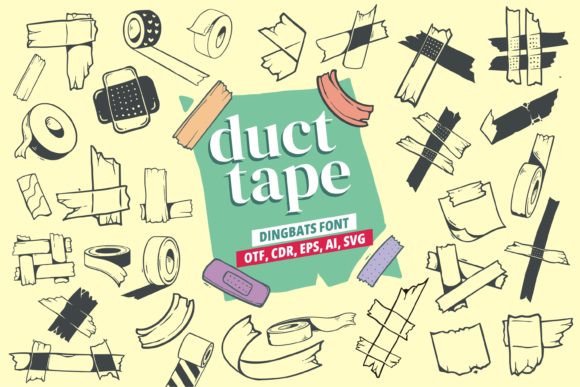
Duct Tape Font: Add a Playful Touch to Your Designs
Duct tape is a versatile and handy tool that can fix almost anything, but did you know that it also has a font version? Introducing the Duct Tape Font, a playful dingbat font that can add a fun and creative twist to your designs. In this article, we’ll explore the world of Duct Tape Font, its features, and how you can use it to make your designs stand out.
What is Duct Tape Font?
Duct Tape Font is a hand-drawn dingbat font that features illustrations of duct tape in various forms. The font is designed to be playful and fun, making it perfect for creative projects that require a touch of whimsy. The duct tape illustrations are meticulously crafted to resemble real duct tape, complete with wrinkles, folds, and textures.
The font comes with a range of characters, including uppercase and lowercase letters, numbers, and symbols. Each character is carefully designed to resemble duct tape, allowing you to create unique and eye-catching designs.
Features of Duct Tape Font
The Duct Tape Font has several features that make it a great addition to your design toolkit. Here are some of its key features:
- Hand-drawn illustrations: Each character in the font is hand-drawn, giving it a unique and personal touch.
- Dingbat design: The font features illustrations of duct tape in various forms, making it perfect for creative projects.
- Playful and fun: The font has a playful and fun vibe, making it ideal for designs that require a touch of whimsy.
- Versatile: The font can be used for a variety of purposes, from decorating designs to creating plans.
Uses of Duct Tape Font
The Duct Tape Font is a versatile font that can be used for a range of purposes. Here are some ideas on how you can use it:
- Decorating designs: Add a playful touch to your designs by using the Duct Tape Font to create titles, headings, and other text elements.
- Creating plans: Use the font to create fun and engaging plans, such as party plans, event plans, or DIY project plans.
- Social media graphics: Use the font to create eye-catching social media graphics, such as Facebook posts, Instagram stories, or Twitter headers.
- Stationery and cards: Add a personal touch to your stationery and cards by using the Duct Tape Font.
Tips for Using Duct Tape Font
Here are some tips for using the Duct Tape Font effectively:
- Use it sparingly: While the font is playful and fun, it can be overwhelming if used excessively. Use it sparingly to add a touch of whimsy to your designs.
- Pair it with other fonts: Pair the Duct Tape Font with other fonts to create a unique and interesting design.
- Experiment with colors: Experiment with different colors to find the perfect combination that works with your design.
- Have fun: Most importantly, have fun with the font! The Duct Tape Font is designed to be playful and fun, so don’t be afraid to get creative.
In conclusion, the Duct Tape Font is a playful and versatile font that can add a fun and creative twist to your designs. With its hand-drawn illustrations and dingbat design, it’s perfect for creative projects that require a touch of whimsy. Whether you’re a designer, artist, or DIY enthusiast, the Duct Tape Font is a great addition to your toolkit.
- Q: What is the Duct Tape Font?